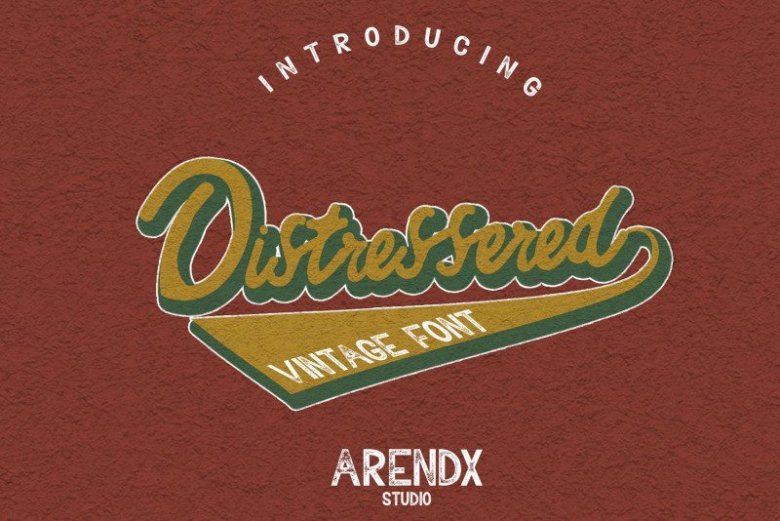
Distressered Vintage Font
Introducing Distressered Font ! A monoline vintage script typeface which is created based on manual hand lettering with many features such as, stylistic set alternate, swashes You will find font in both OTF, TTF,WOFF formats.